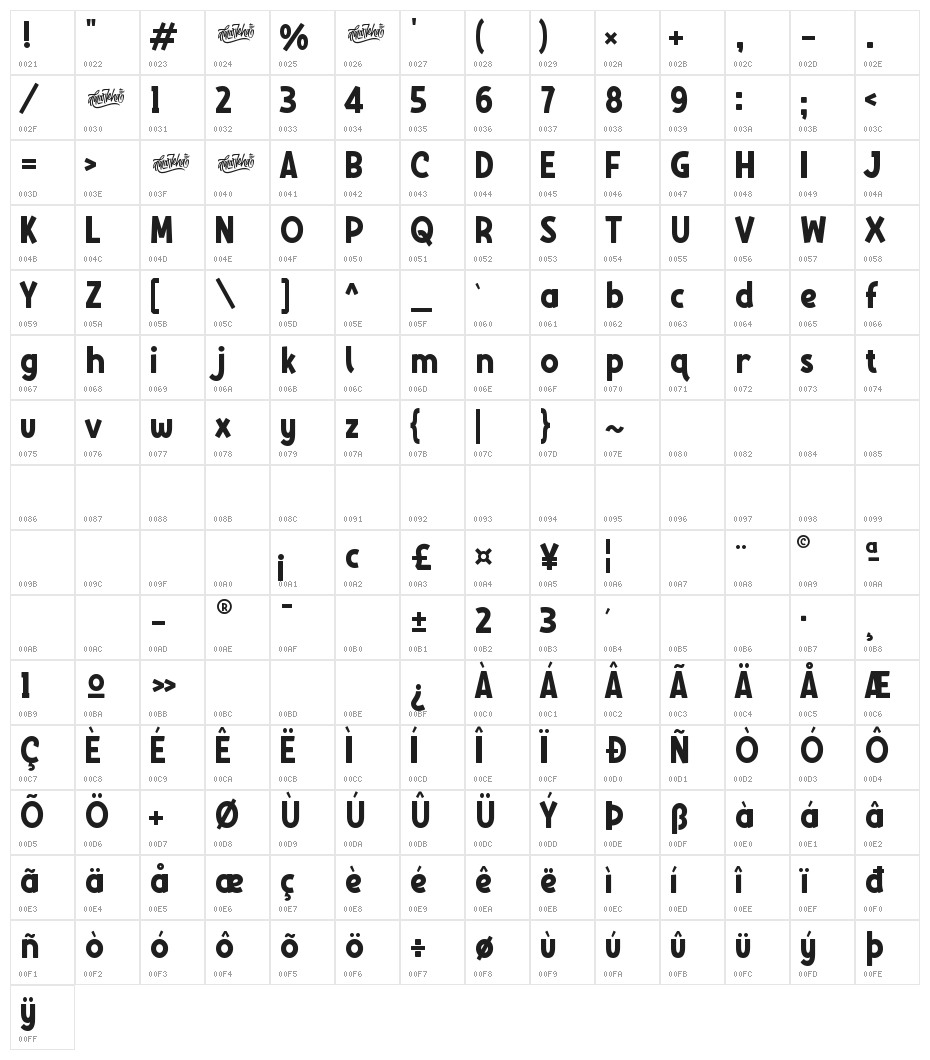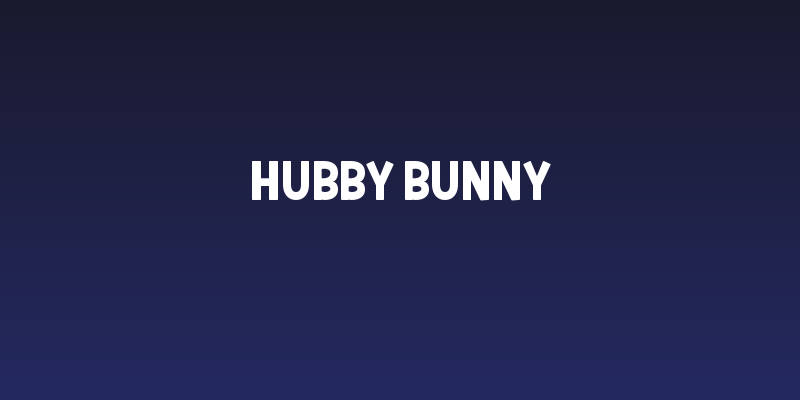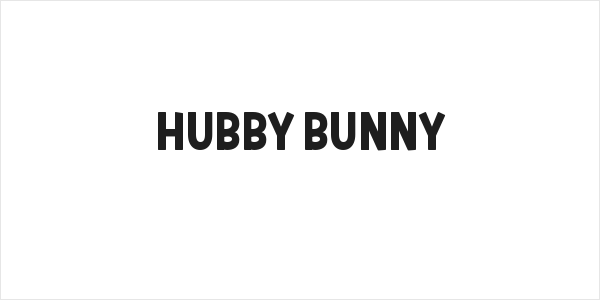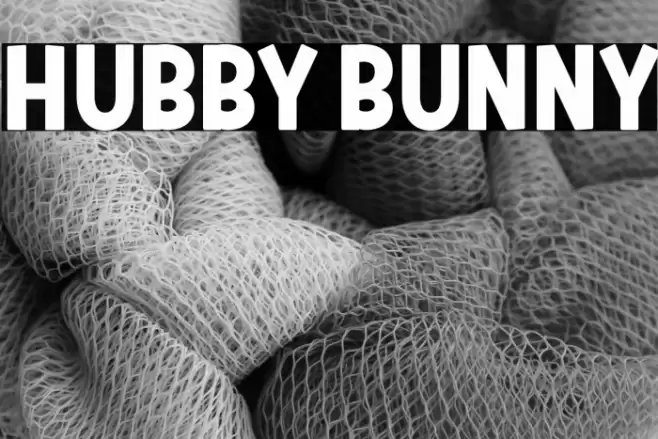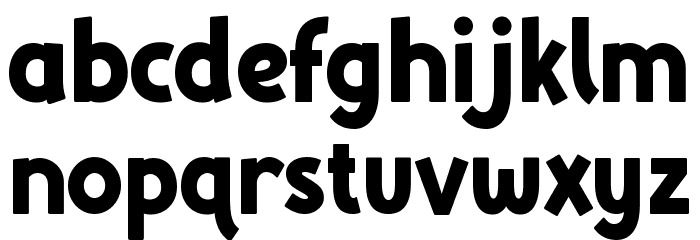
HUBBY BUNNY Font
HUBBY BUNNY Description
This font features bold, rounded characters with a playful and friendly appearance. The uppercase letters are robust and slightly condensed, while the lowercase letters maintain a consistent thickness, enhancing readability. The numbers are clear and distinct, matching the overall style of the alphabet. Special characters are included, maintaining the same bold and rounded aesthetic. This font is versatile, suitable for both digital and print media, and can be used to convey a sense of warmth and approachability.
| Overall Style | Playful |
| Proposed Projects | Ideal for children's books, playful branding, posters, and social media graphics. |